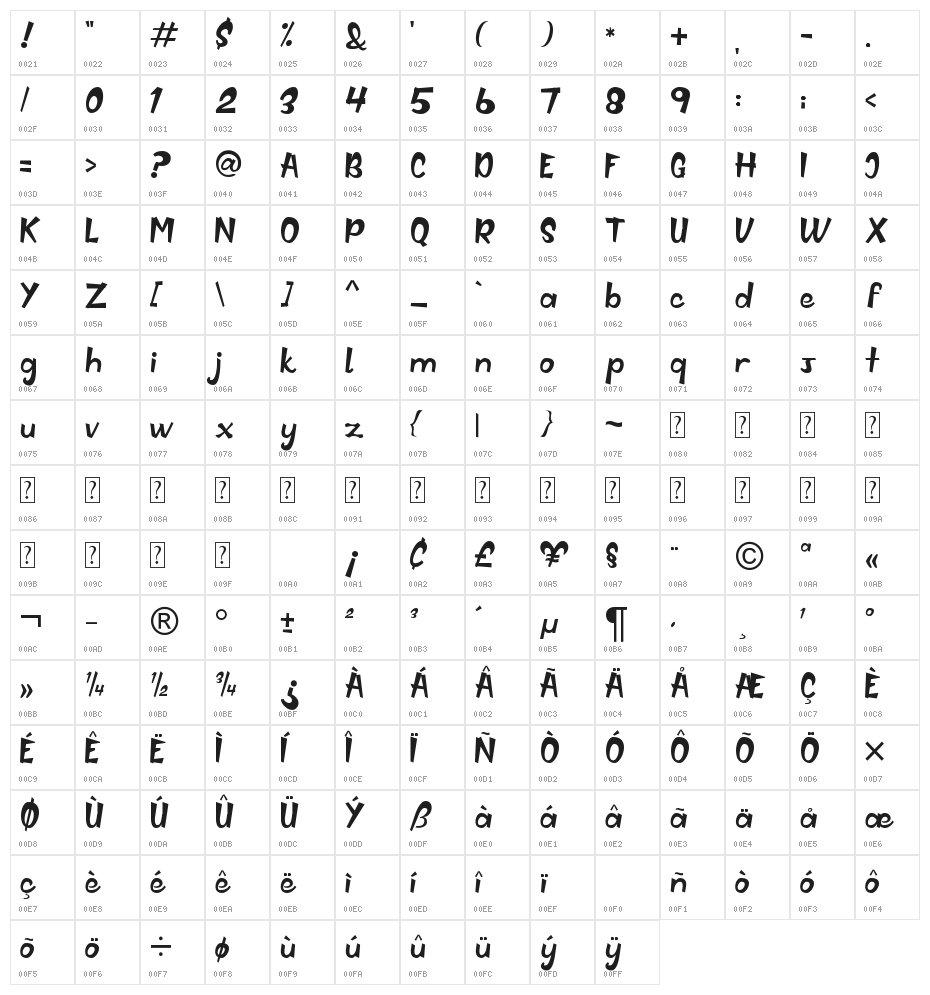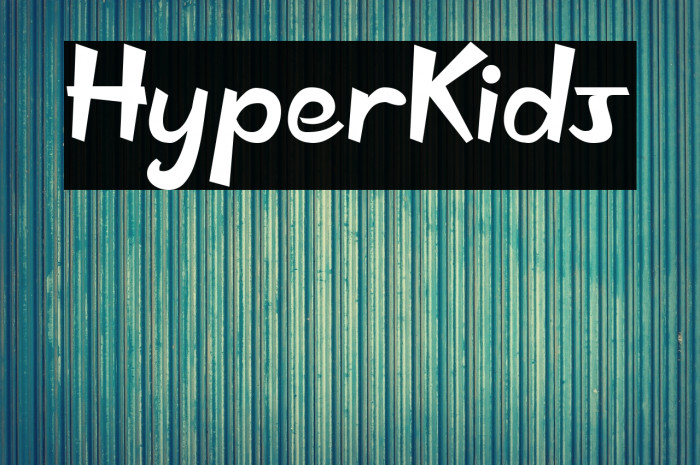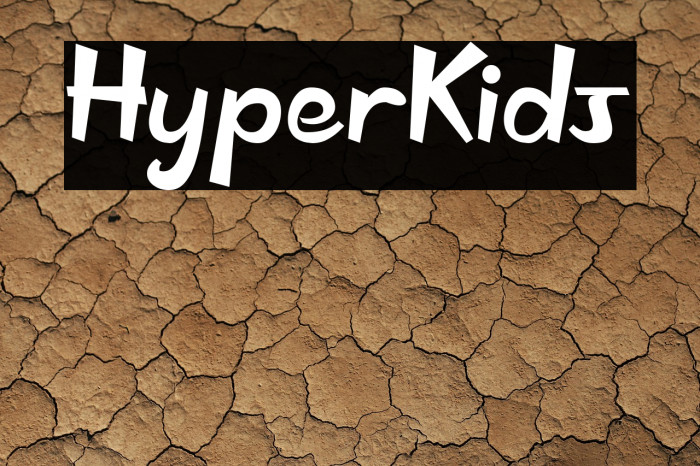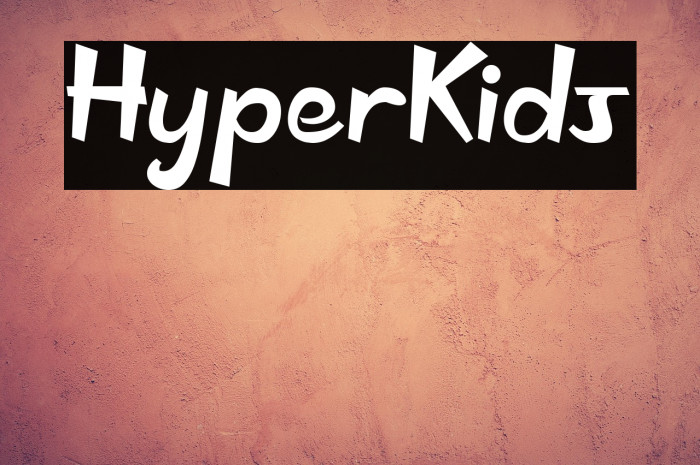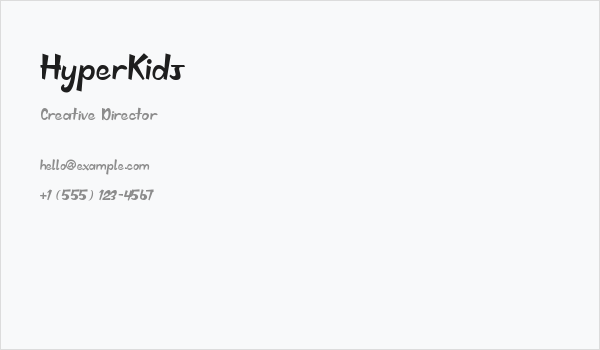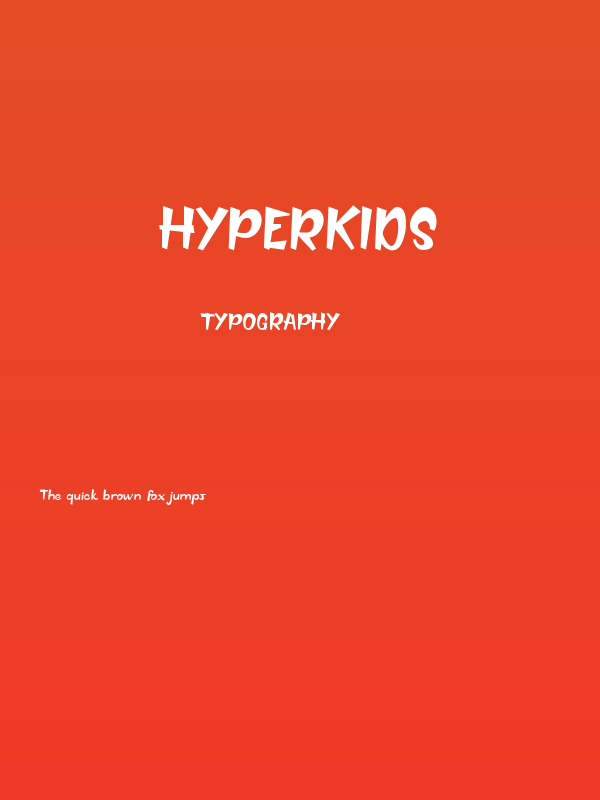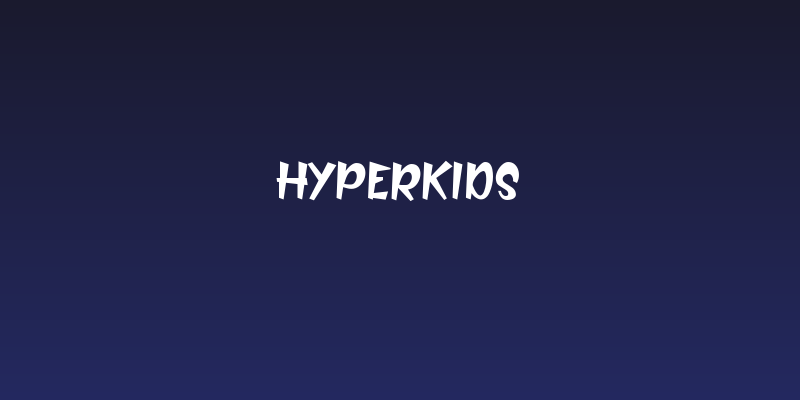
HyperKids Font
HyperKids Description
This playful and energetic font features bold, irregular strokes that give it a lively and dynamic appearance. The characters are slightly slanted, adding to the sense of movement and fun. The uppercase letters are bold and prominent, while the lowercase letters maintain a consistent style with a touch of whimsy. The numbers are equally bold and maintain the playful theme. Special characters are creatively designed, fitting seamlessly with the overall style. This font is perfect for projects that require a youthful and vibrant touch.
| Overall Style | Playful, Energetic, Fun |
| Proposed Projects | Ideal for children's books, playful branding, party invitations, and any project needing a fun, energetic vibe. |